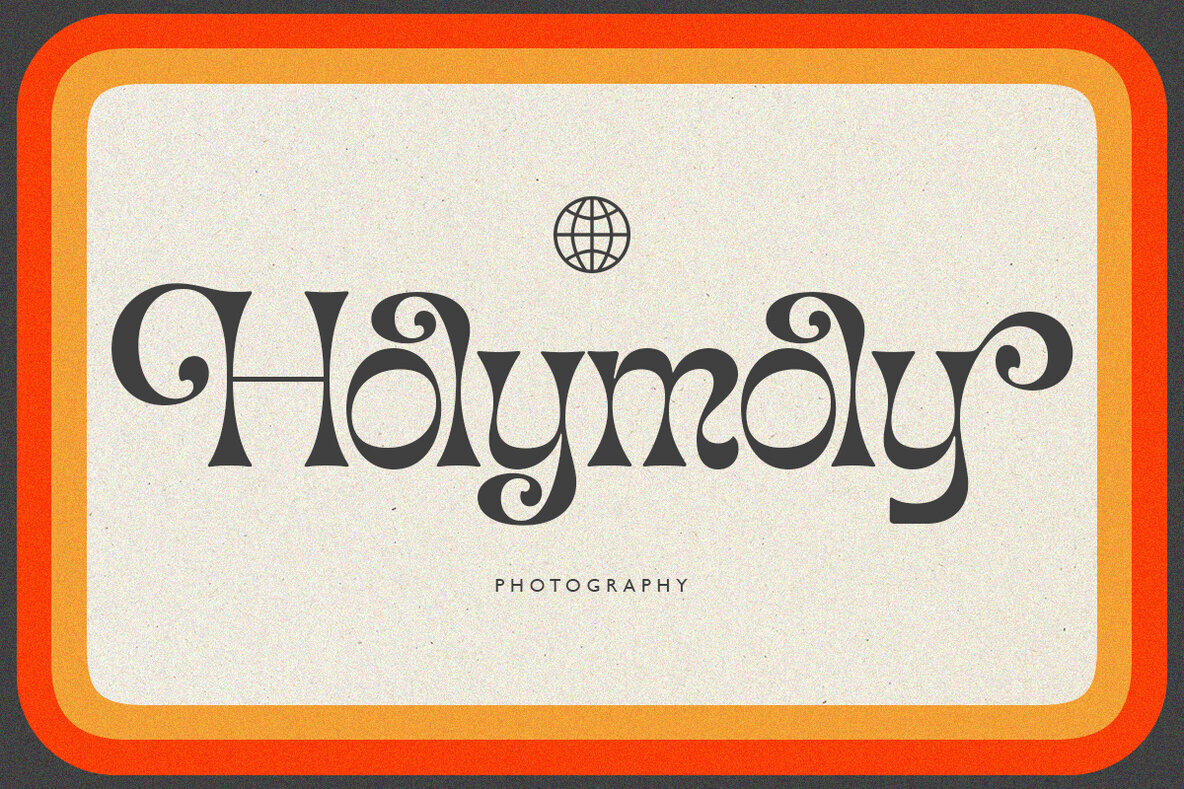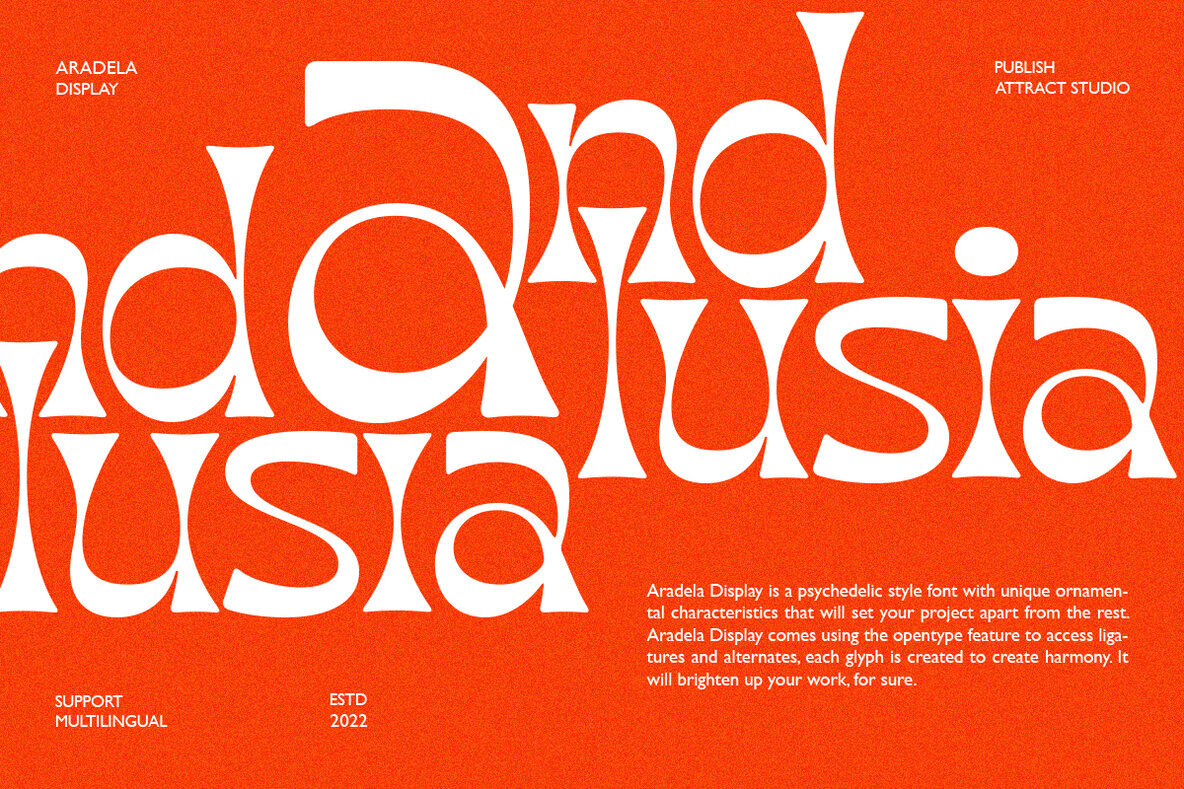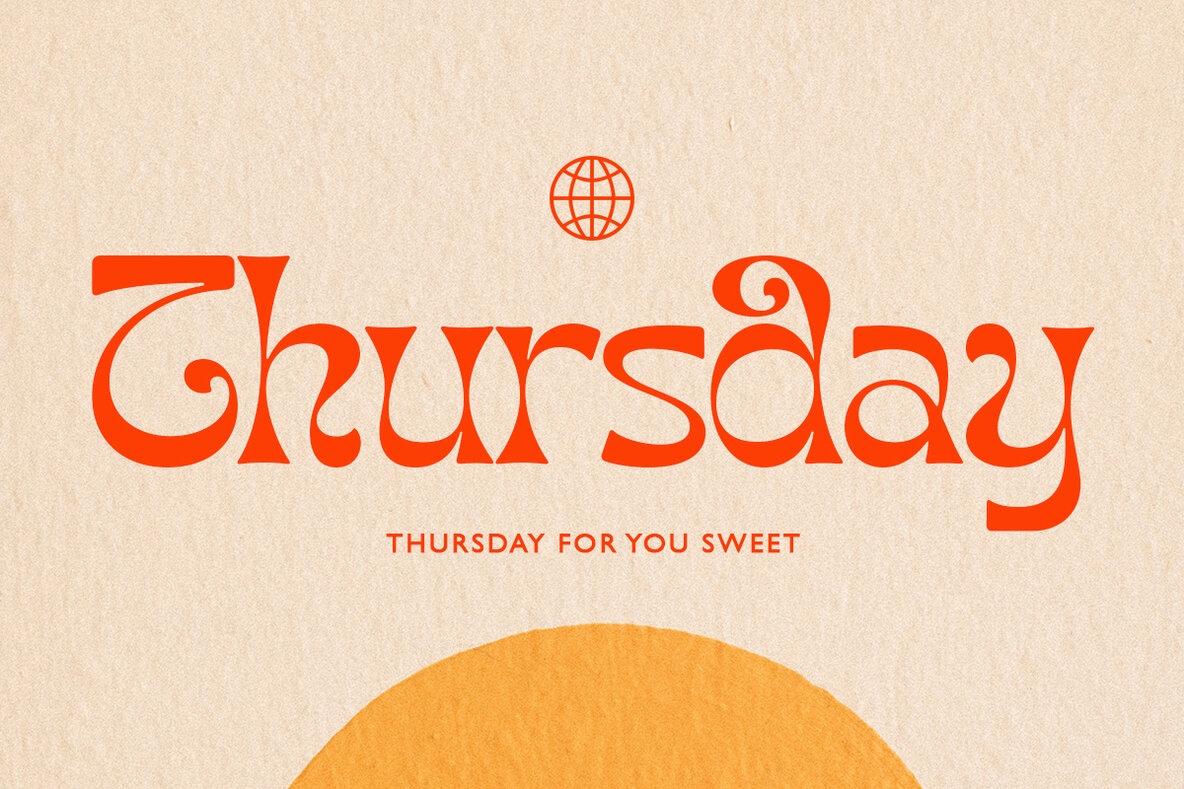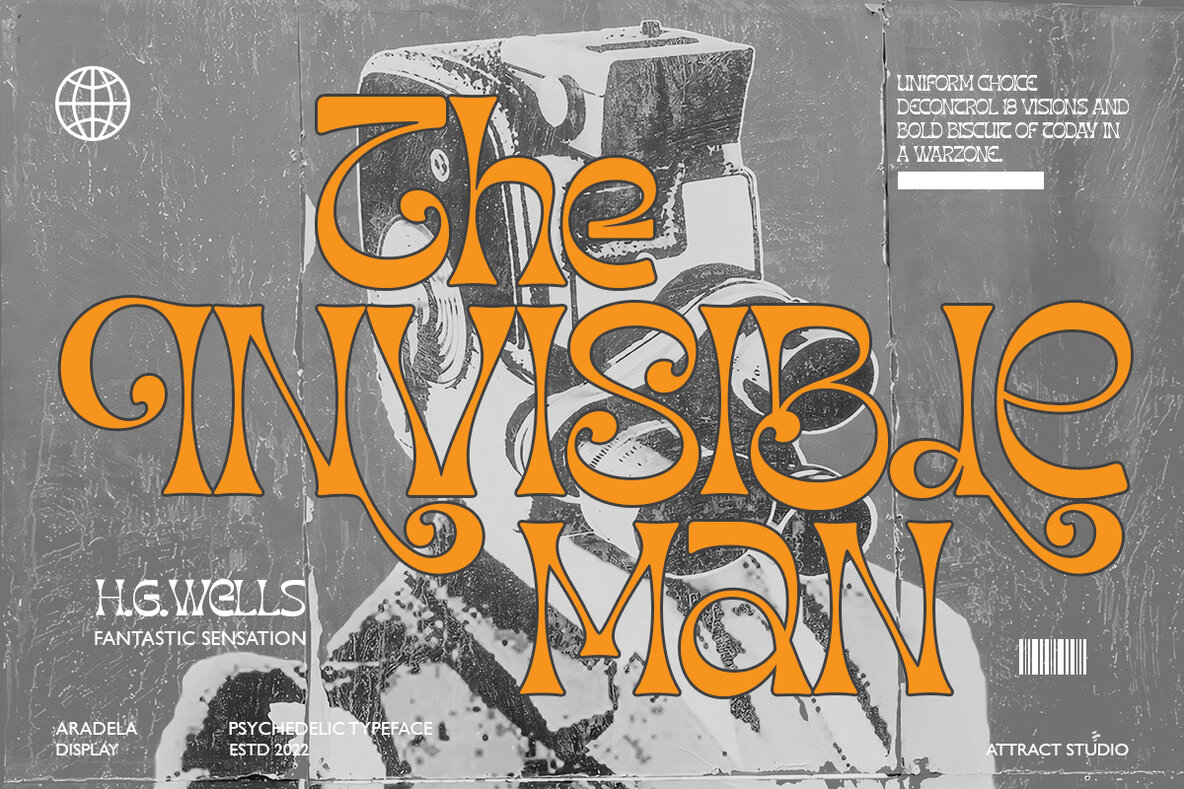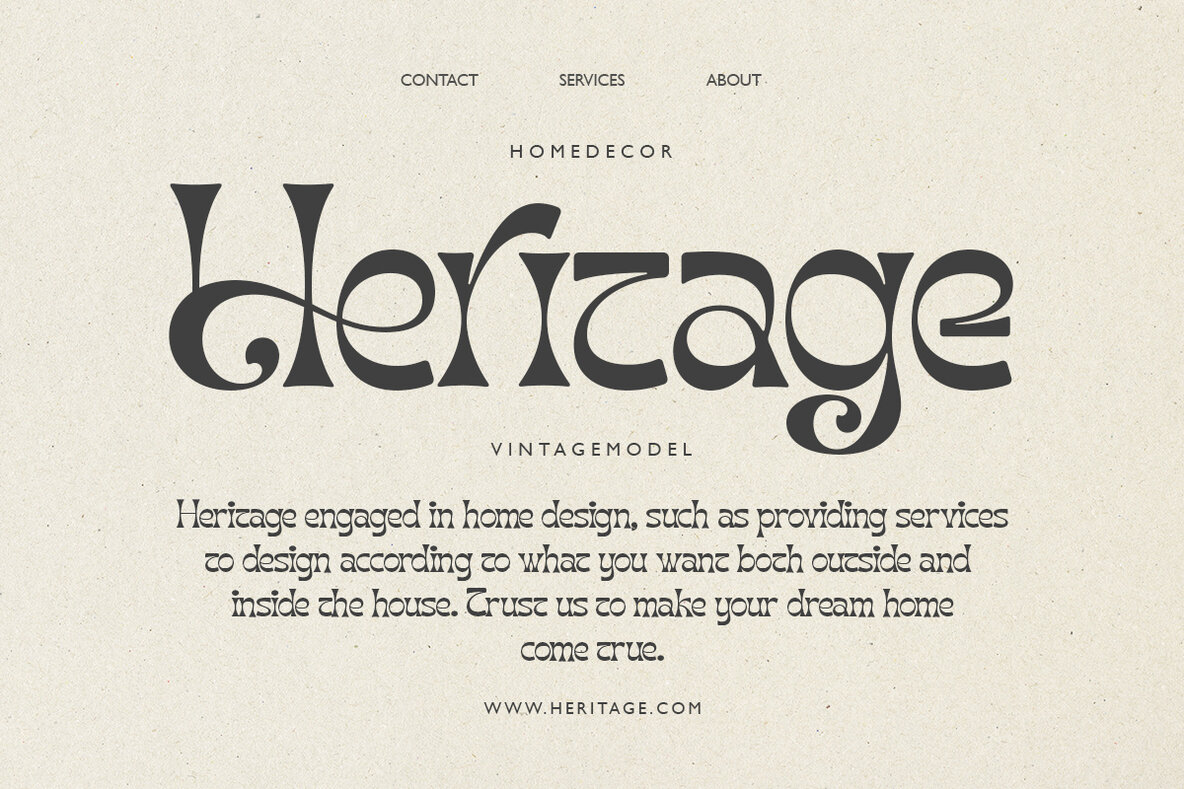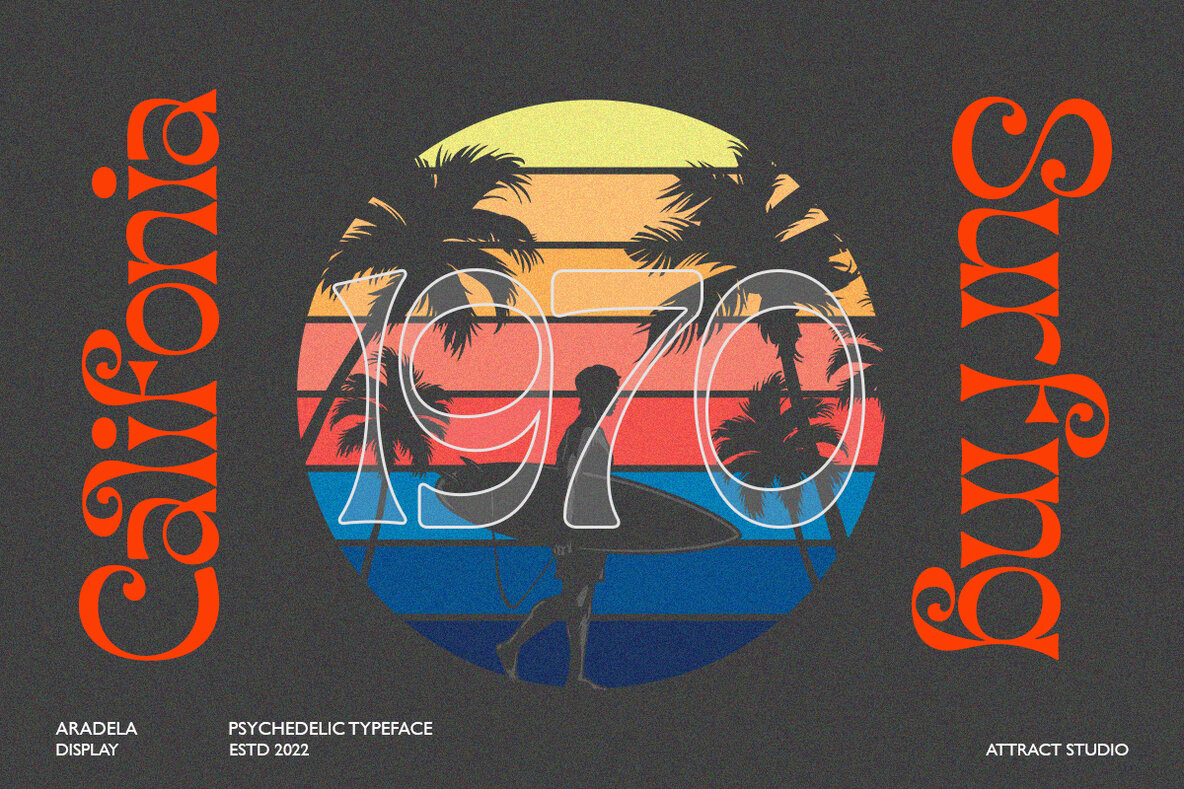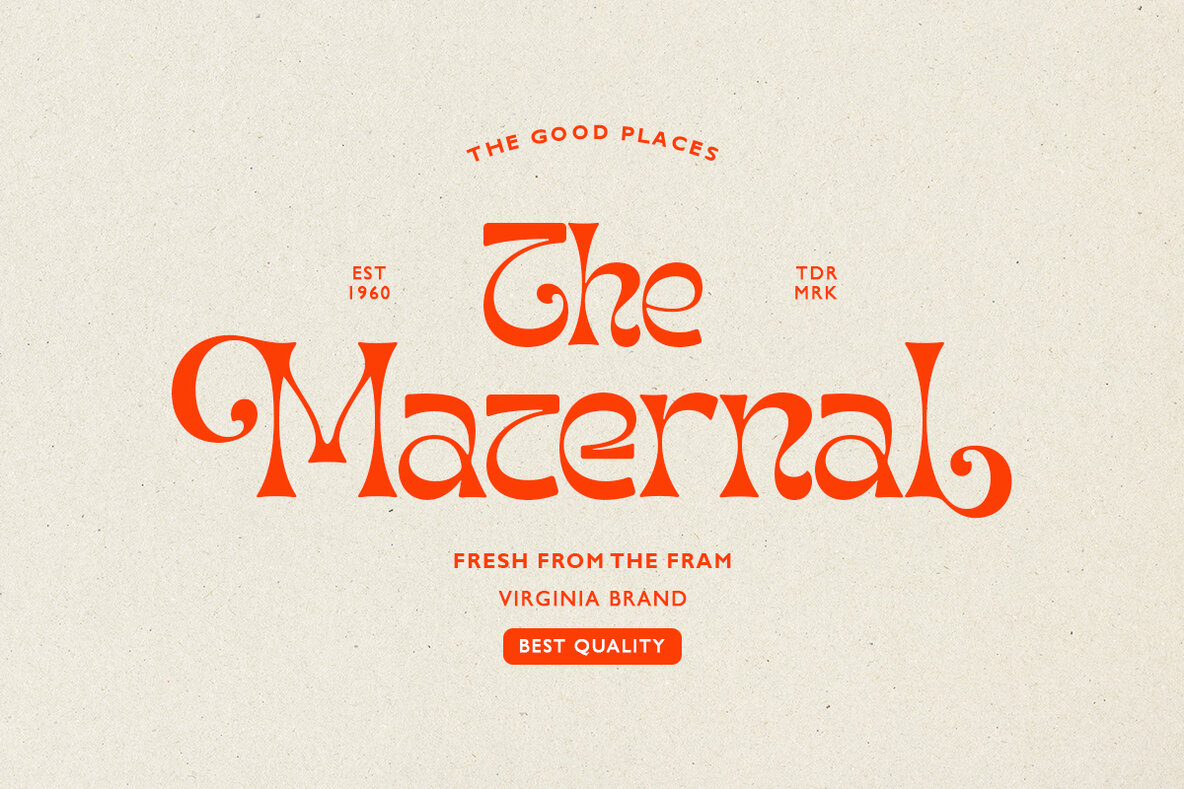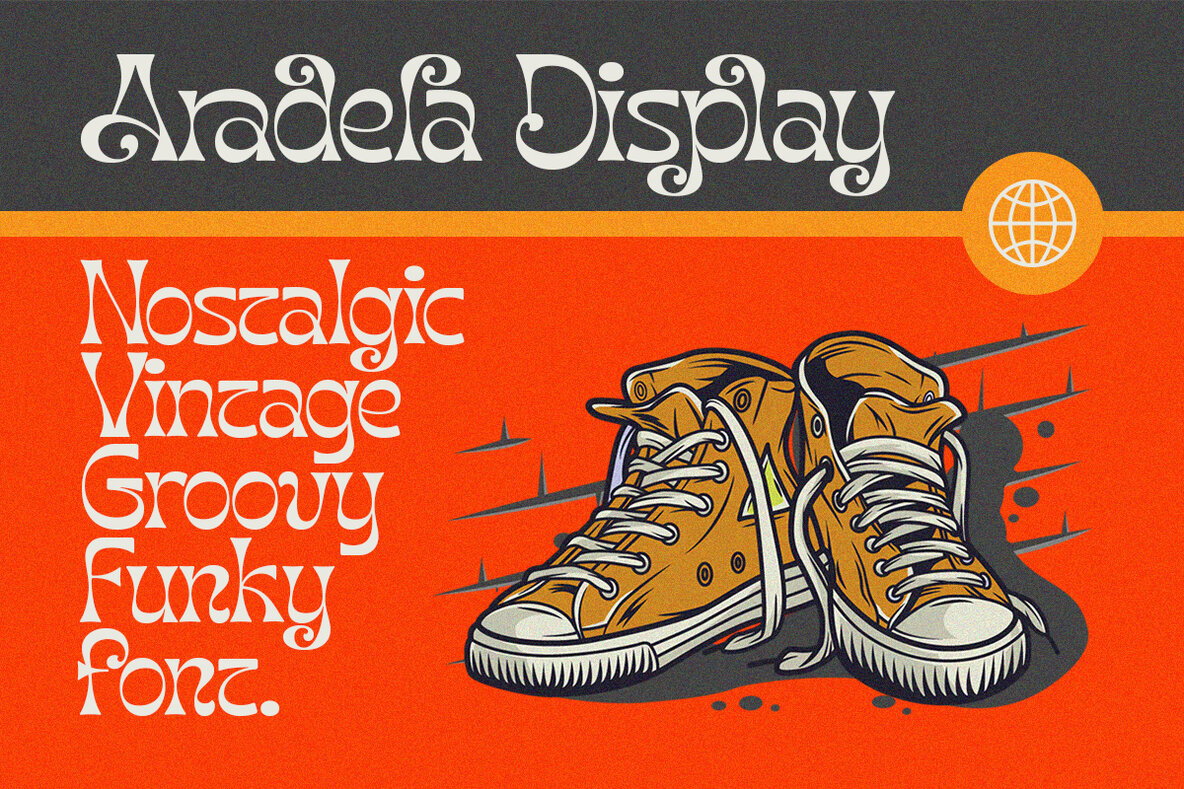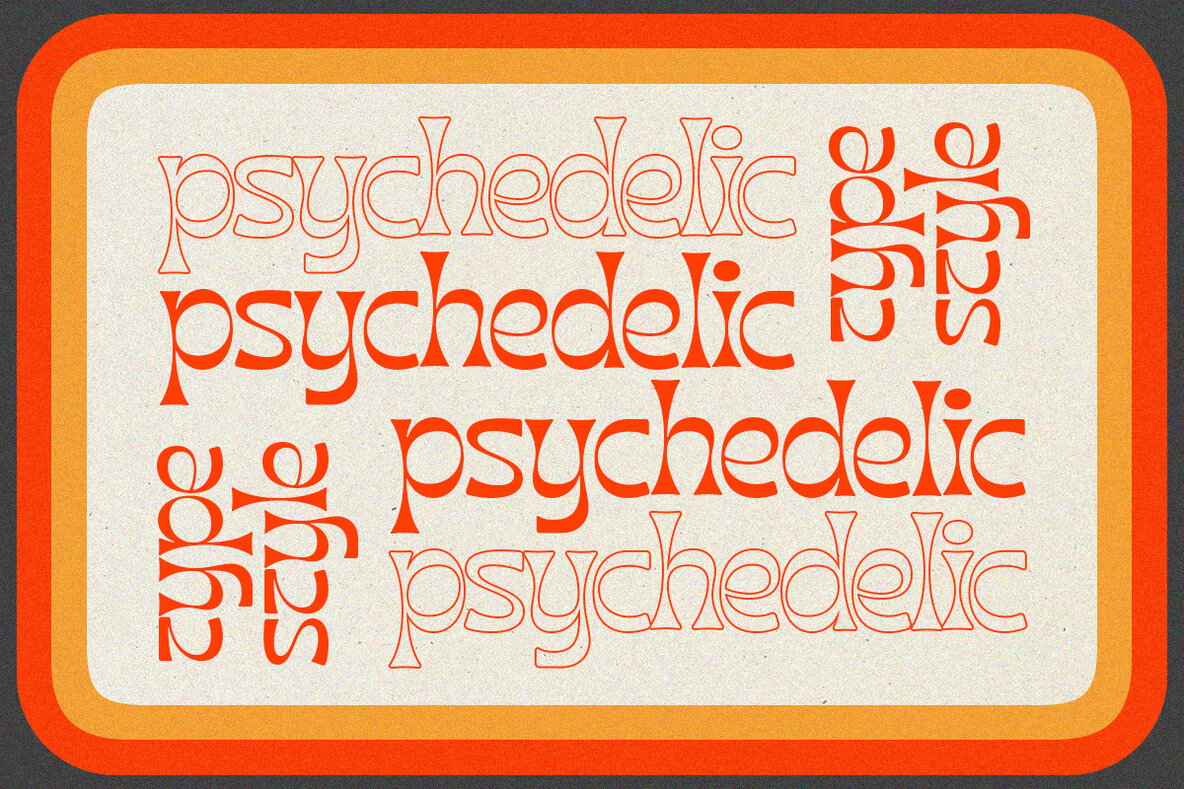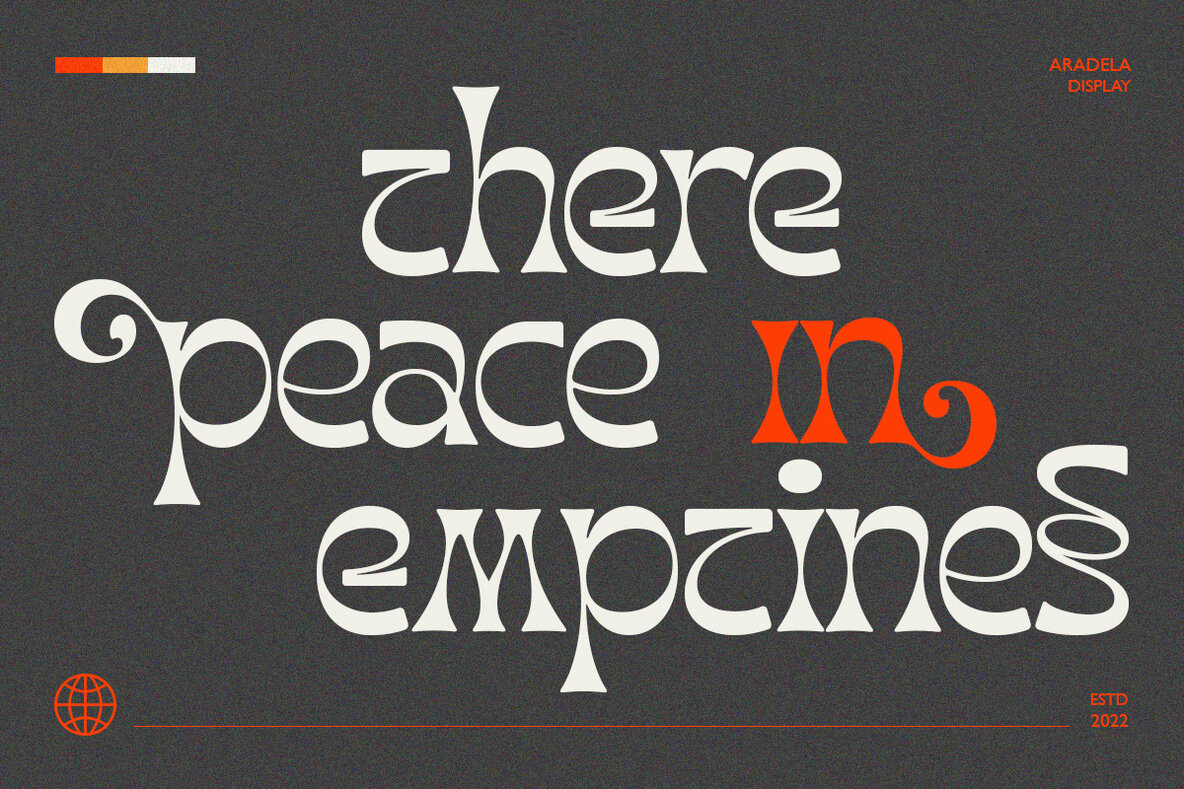
Aradela Display Font
Aradela Display Regular
Unleash a psychedelic vibe with Aradela Display: the ultimate font for stand-out projects. Combining unique ornamental features and opentype ligatures & alternates, this typeface brings harmonious style to any design. Let Aradela's captivating brightness light up your creative work!